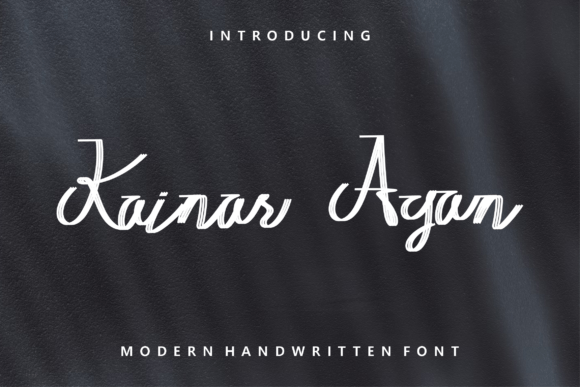
Embark on a typographic adventure with Kainar Agan Font, the modern and compelling handwritten font that adds a touch of charm to your digital creations. Crafted with precision by prayoga_std, this font family captivates with its unique script style, making it the perfect choice for expressing your creativity in various projects.
Dive into a world of boundless possibilities with Kainar Agan Font. Whether you're a seasoned graphic designer or just starting your creative journey, this font is your versatile companion. Its captivating strokes and playful characters bring life to your designs, making them stand out from the crowd.
With Kainar Agan Font, the mundane becomes extraordinary. Transform your crafts into masterpieces, elevate your digital designs to new heights, captivate your audience with dynamic presentations, and create greeting cards that leave a lasting impression. Let your imagination soar as you explore the endless applications of this remarkable font.
Unleash the power of expression with Kainar Agan Font. Its enchanting style adds a personal touch to your designs, conveying emotions and messages with effortless grace. Make a bold statement, share heartfelt sentiments, or simply add a dash of whimsy to your projects. The possibilities are limitless with this versatile font.